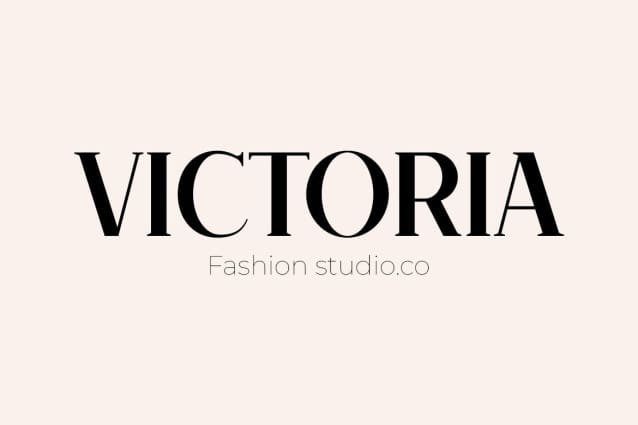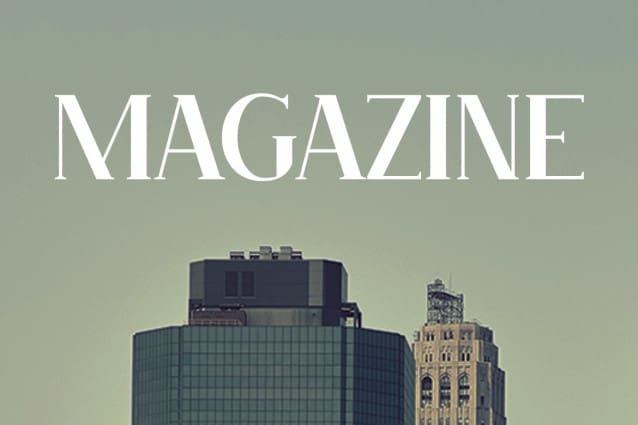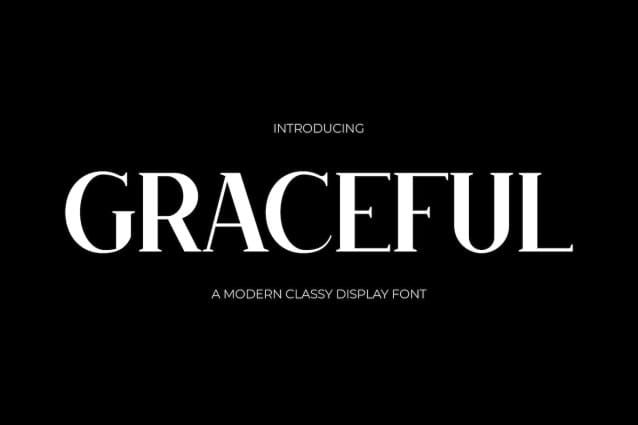
Graceful Font
Graceful Font, this serif font is stylish and sophisticated. It has a classic feel with thin strokes, sharp angles, and elegant curves. It is perfect for any project looking to add a touch of class. This font is PUA encoded which means you can access all glyphs and swashes effortlessly!